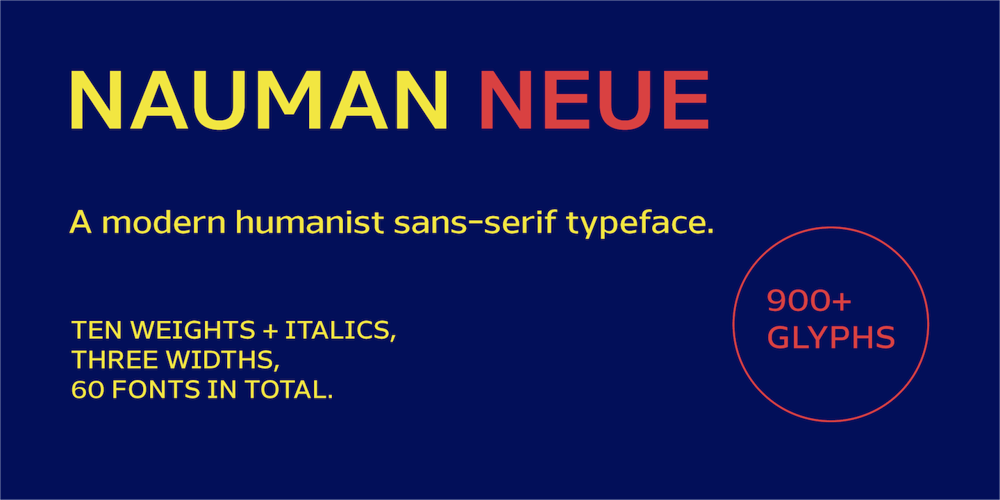
Nauman Neue Font Family was designed by Jonathan Hill and published by The Northern Block. Nauman Neue contains 60 styles and family package options. Nauman Neue is a modern humanist sans serif typeface made for the screen. Broad open letter forms are combined with precise geometry to create a functional and legible font that’s ideal for web and on-screen applications. In 2021 Nauman was expanded to sixty styles, including two helpful widths condensed and semi-condensed.Included in the font are 900 characters per style, ten weights and three widths with matching italics. Opentype features consist of seven numerals variations, including inferiors, superiors, fractions, tabular, lining, and old style. It also has alternate lowercase a, e, I, M, small caps, arrows and language support covering Western, South, Central Europe and Vietnamese.